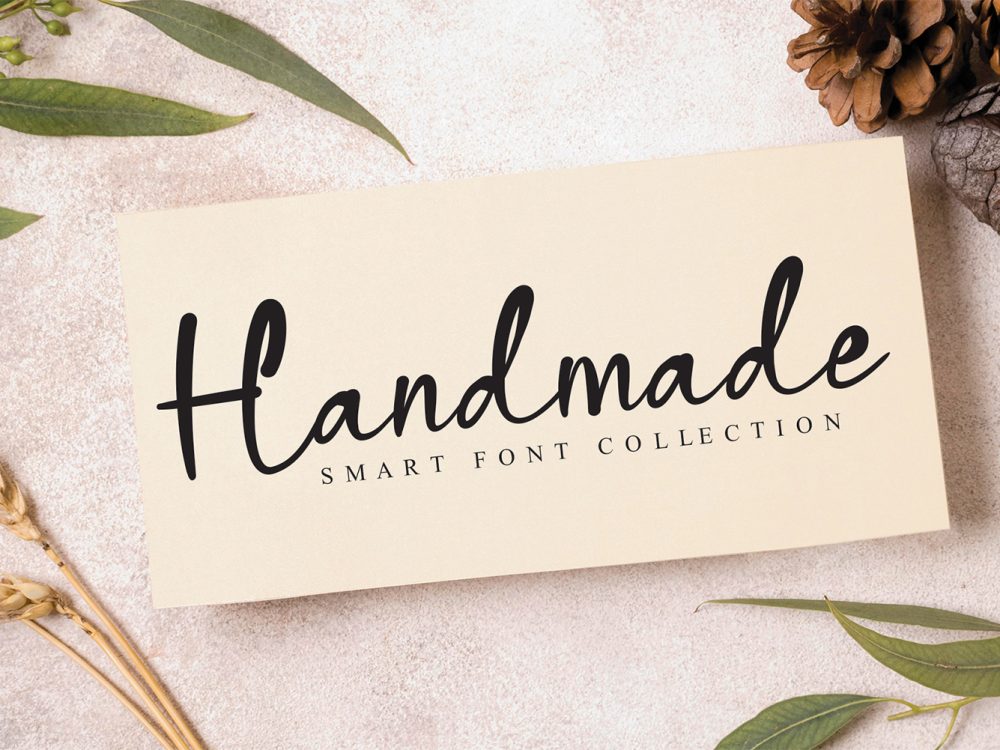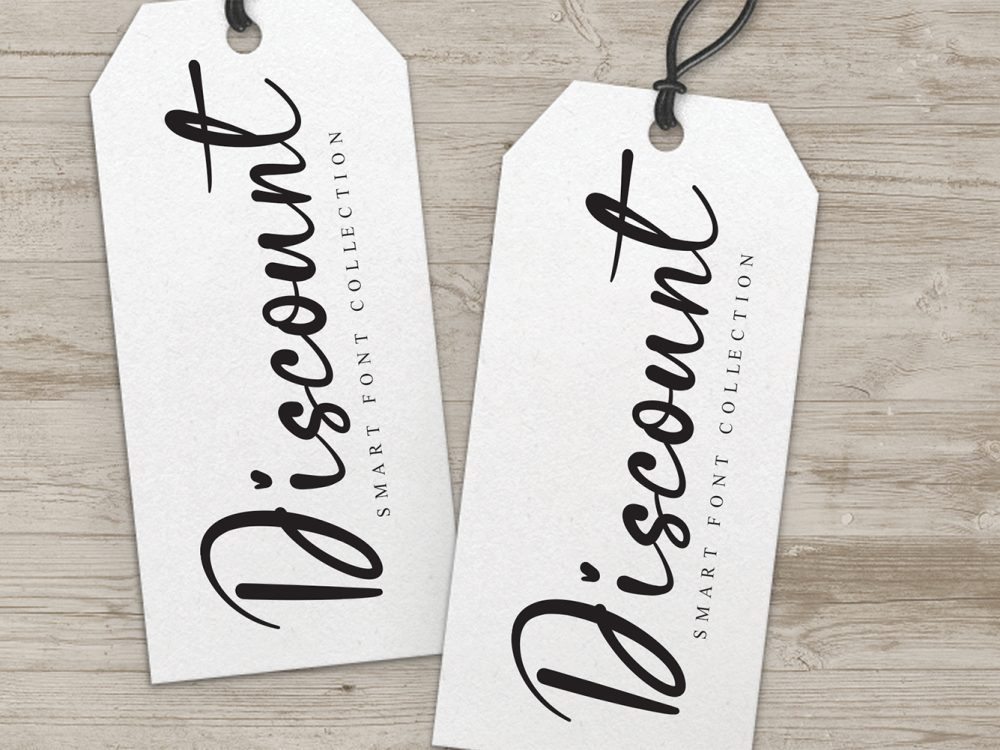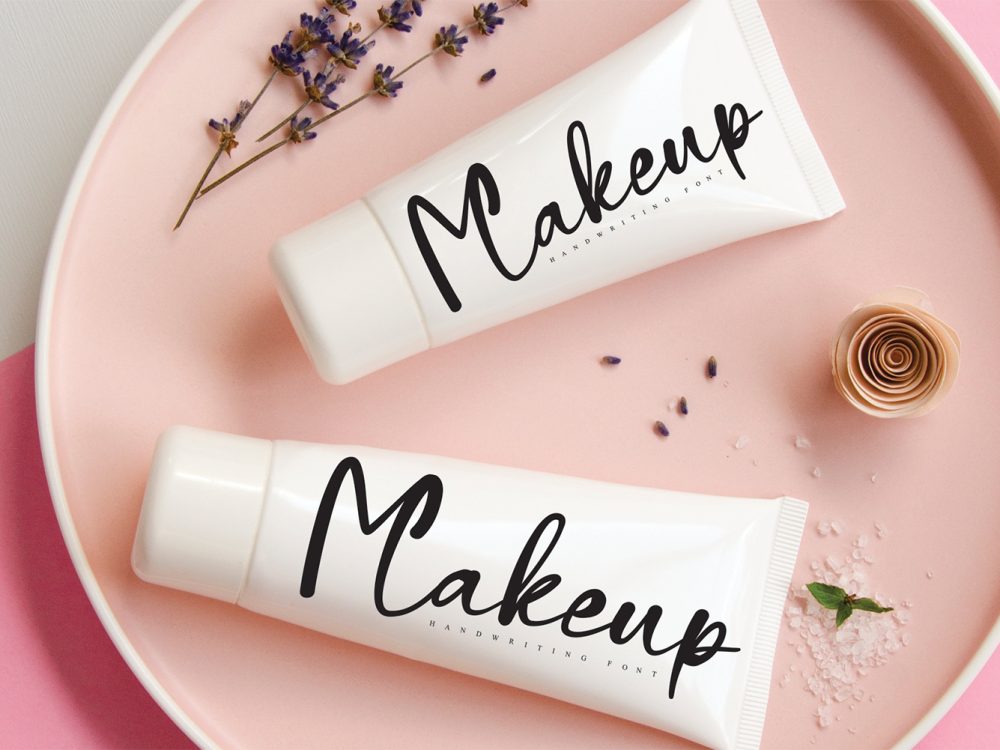
Bountiful Free Font
Experience the elegance of Bountiful Free Font, a graceful and airy handwritten font that radiates a distinct essence and leaves a striking impression. Infuse a touch of opulence into your design ventures with this font, illuminating every project you undertake. If you like it don’t forget to check out the full version.